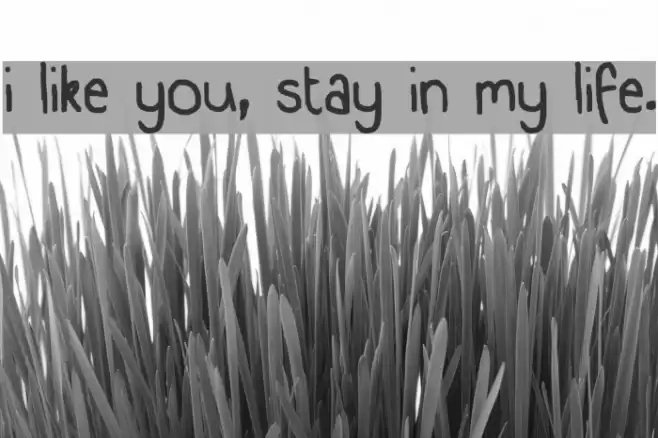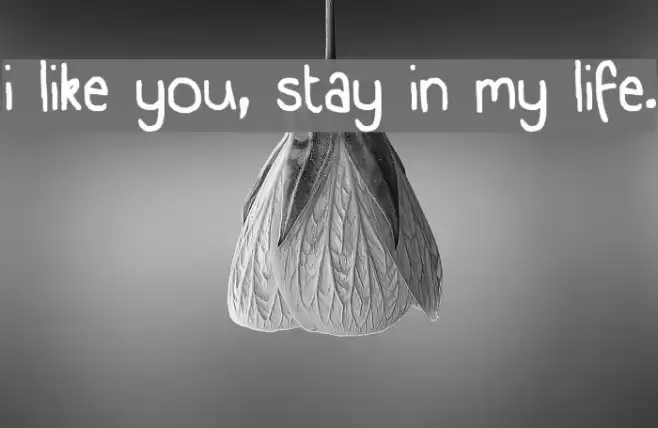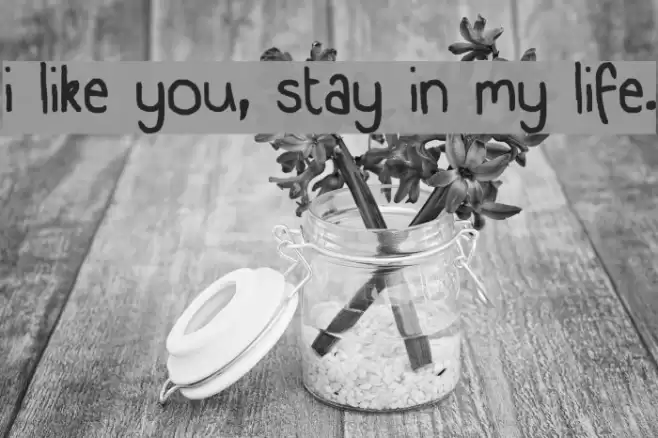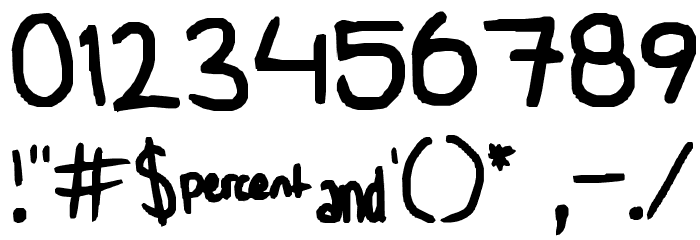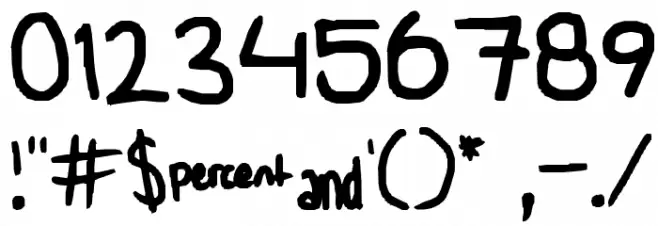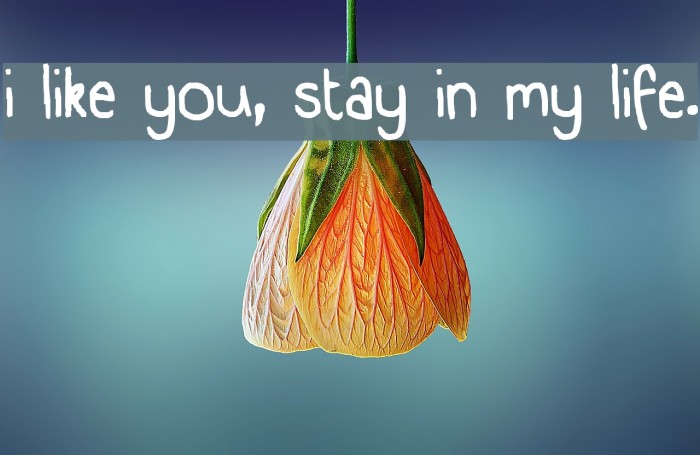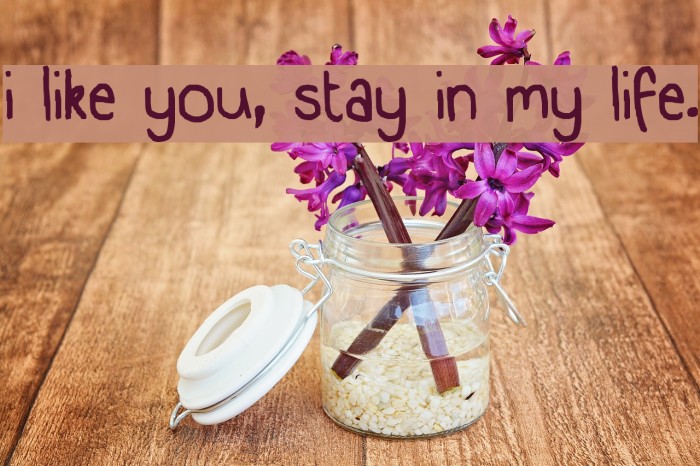
This playful and whimsical font features a handwritten style with a casual and friendly appearance. The characters are slightly irregular, adding a personal touch that feels approachable and informal. The uppercase letters are bold and rounded, while the lowercase letters maintain a consistent flow with a slightly larger size, enhancing readability. The numerals are distinct and easy to distinguish, and the special characters are creatively styled to match the overall aesthetic. This font's unique charm makes it suitable for projects that require a personal and engaging touch.
A playful handwritten font with a casual and friendly style from Uncategorized fonts.
- Proposed Projects: Ideal for greeting cards, children's books, personal blogs, and informal branding.
- Overall Style: Casual
- Use Case: Headlines, Informal text, Creative projects